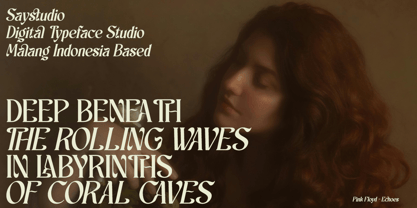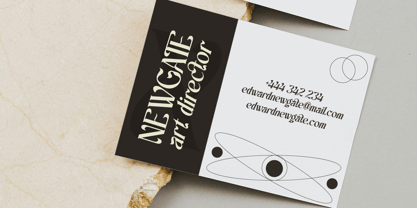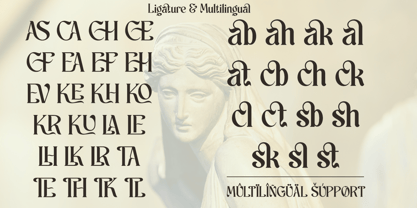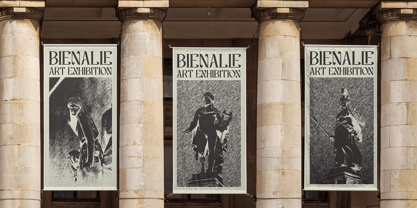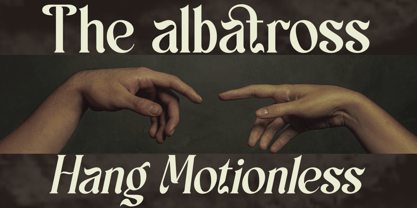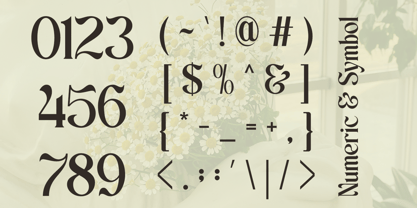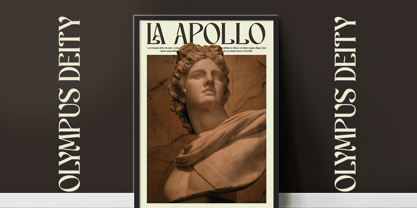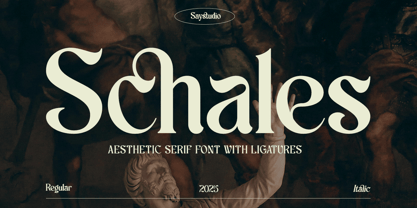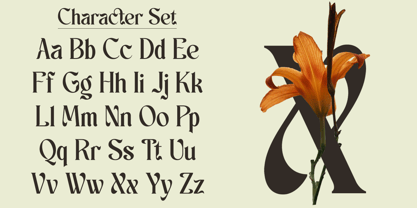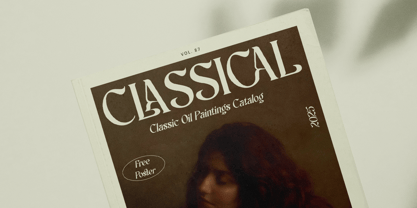
Schales
The Schales Font Family was designed by Mussyayin and published by Say Studio. Schales contains 2 styles and family package options. More about this family
Schales is an aesthetic and elegant modern ligature serif font. Its beautiful, flowing shapes offer a modern touch with of serif font, making it suitable for both contemporary and vintage designs. I It is perfect for headline, digital ads, magazines, website, poster, branding, and logos. With its elegant curves and unique variations, this font is perfectly suited for any creative project.
- Schales Regular
- Schales Italic
- Stylish Ligatures
- Multilingual Support